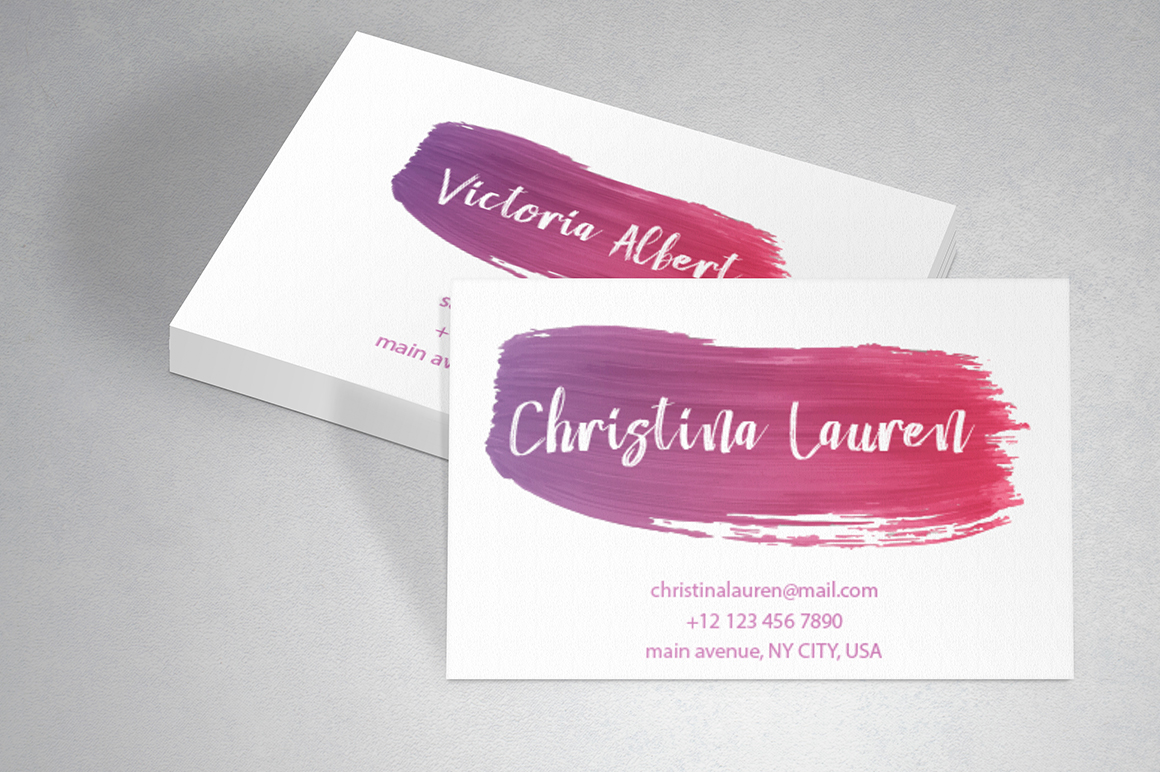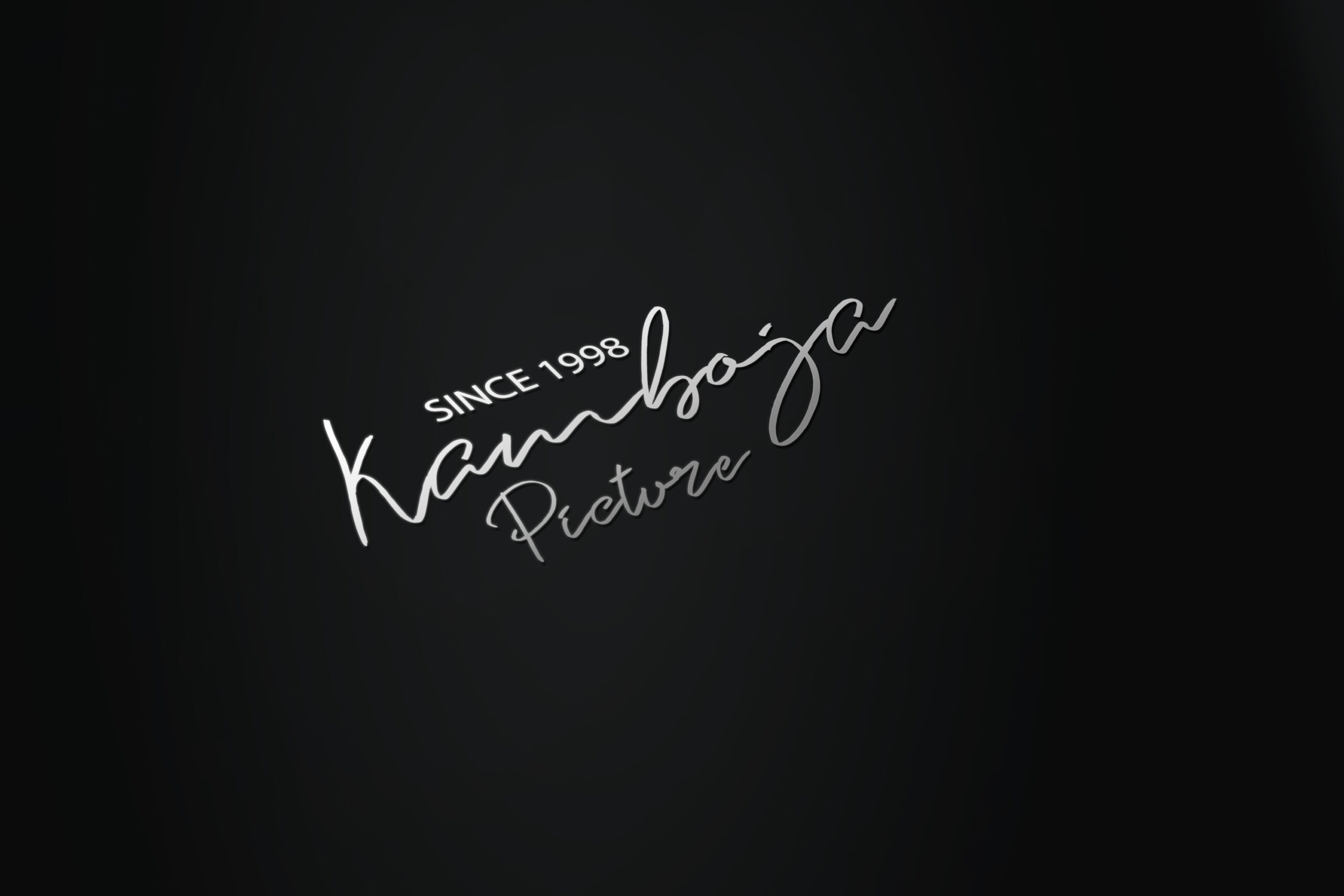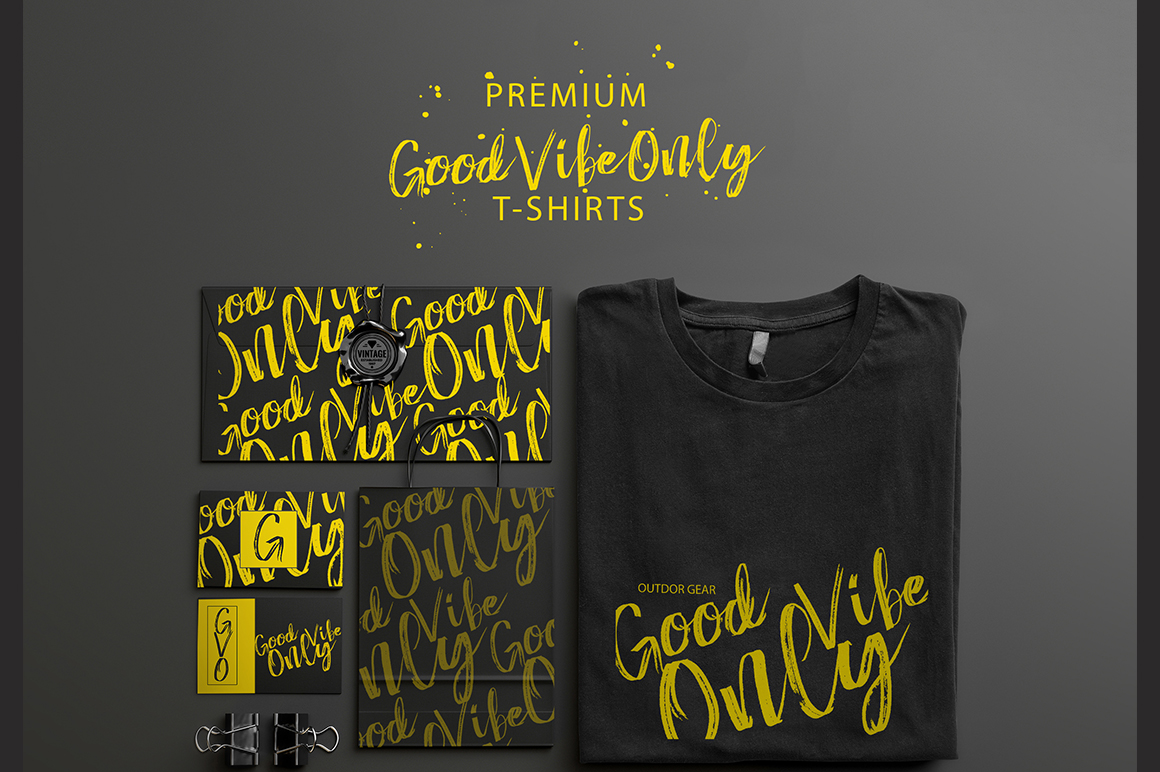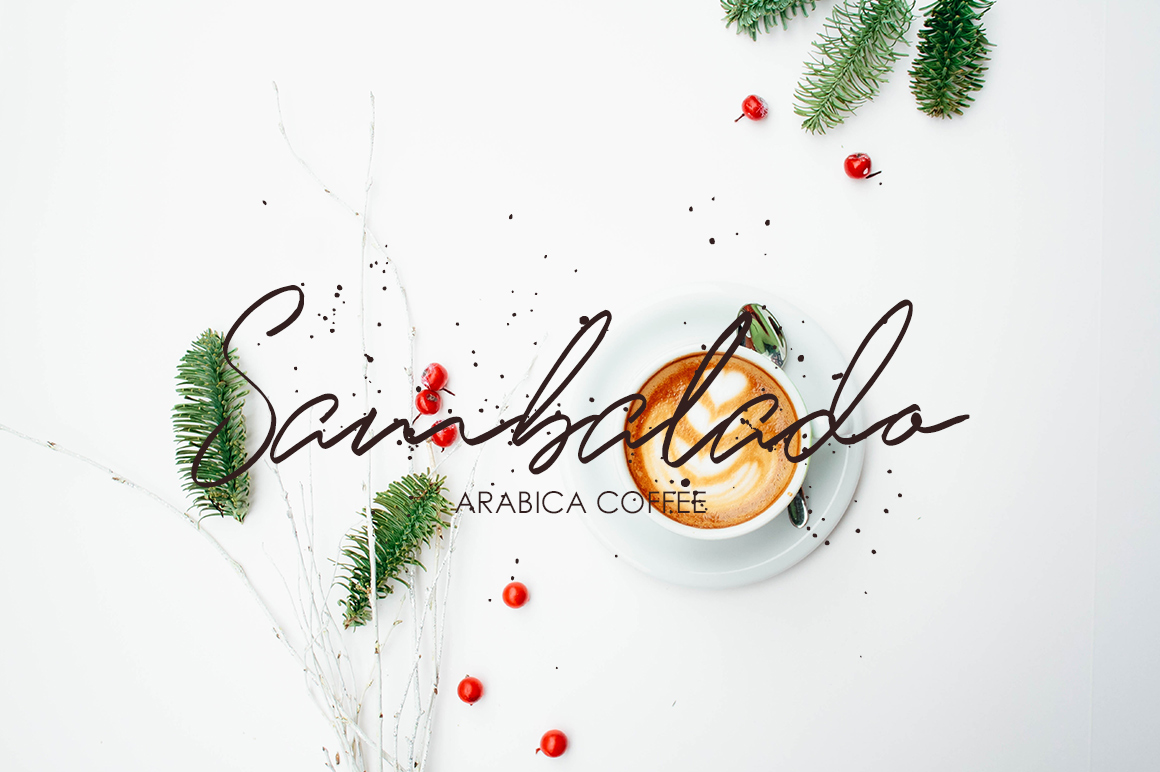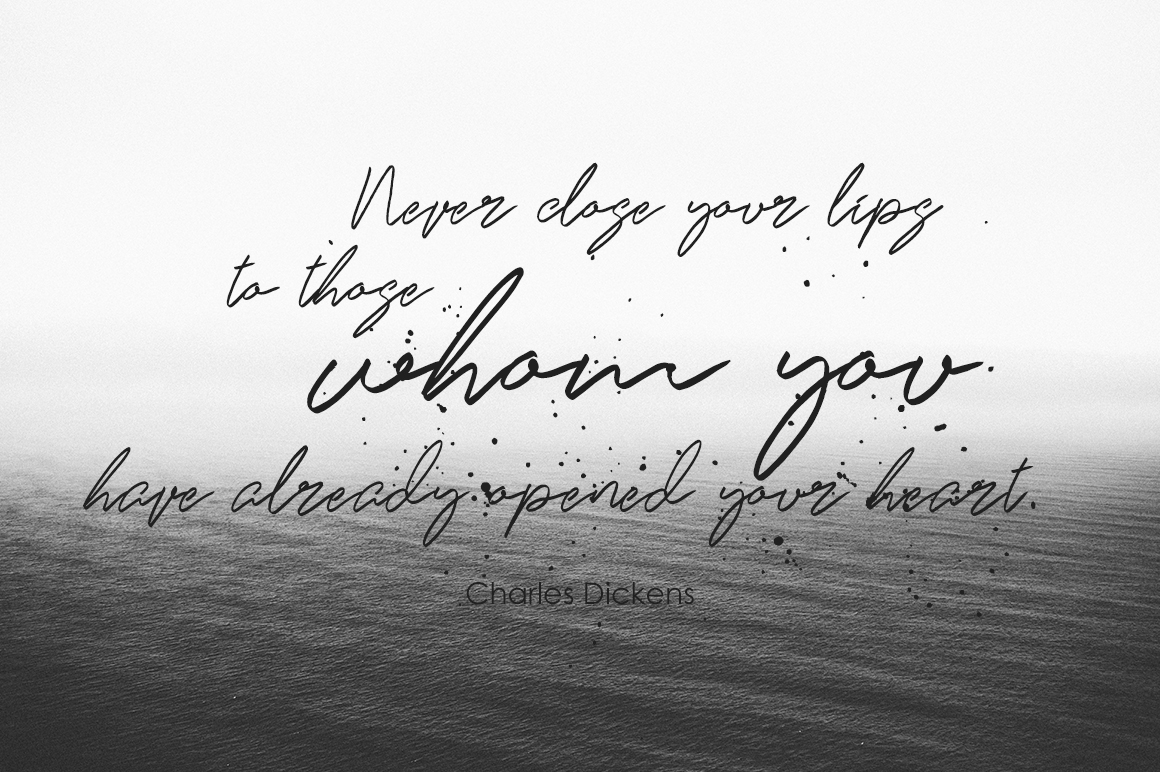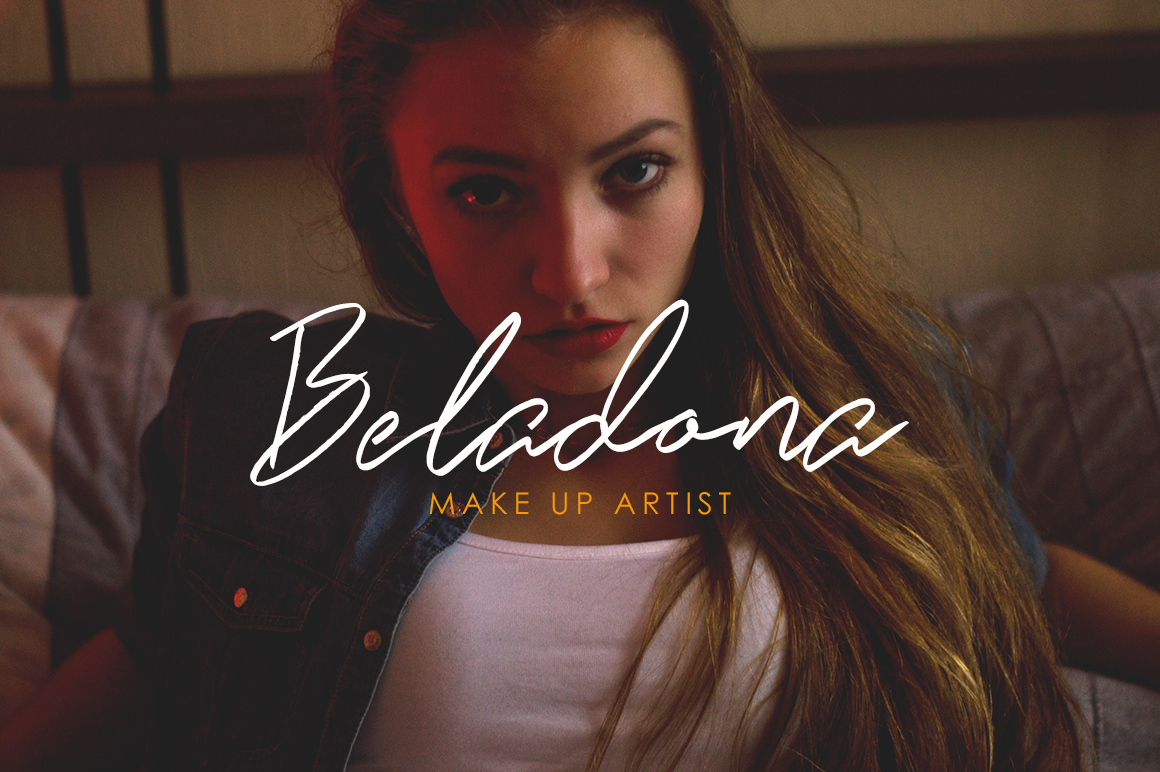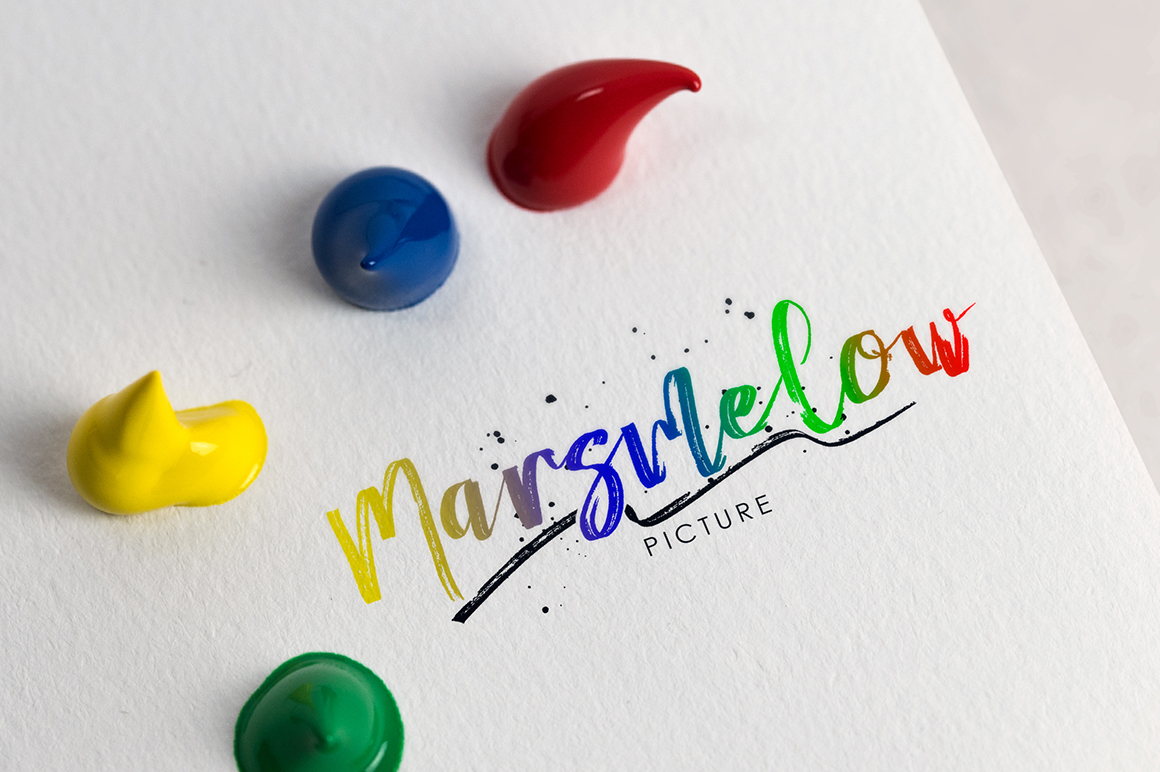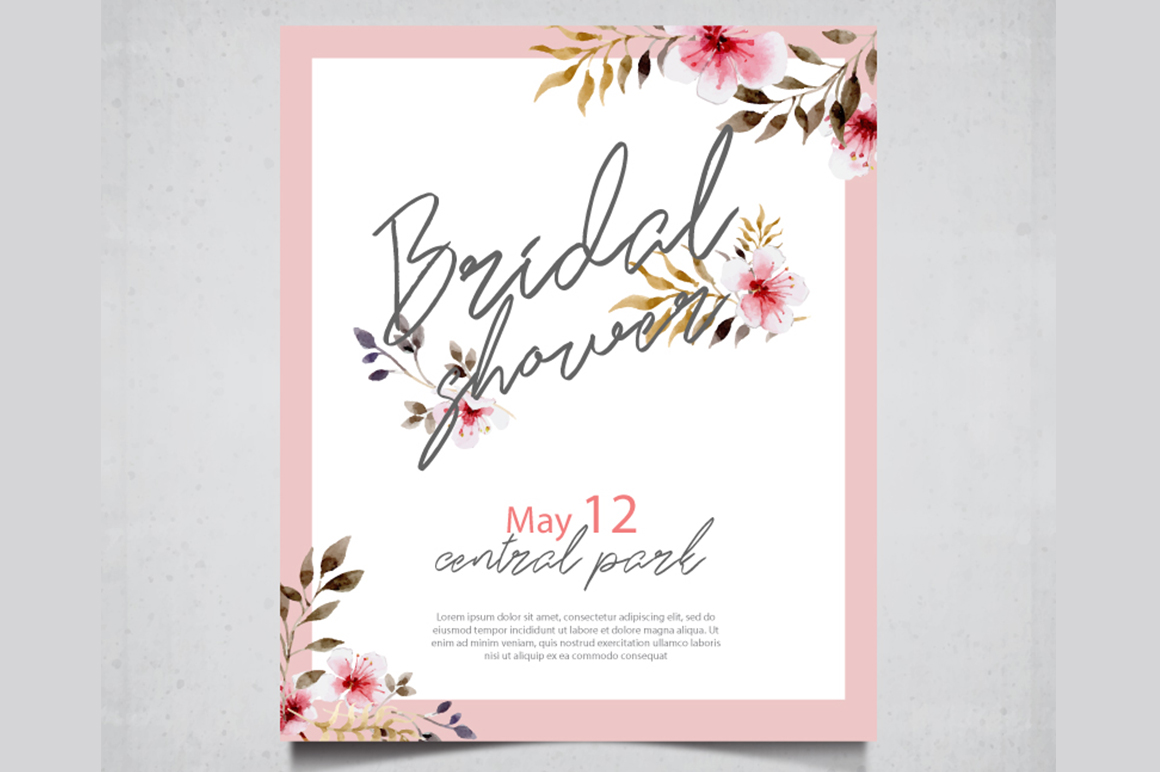
Brailes Font
About Brailes Font
Brailes is a brush script font pack that comes with the script, signature font and bonus swashes & splashes.
This modern font is perfect for both craft & corporate projects.